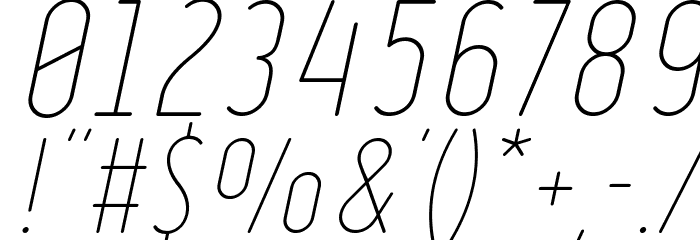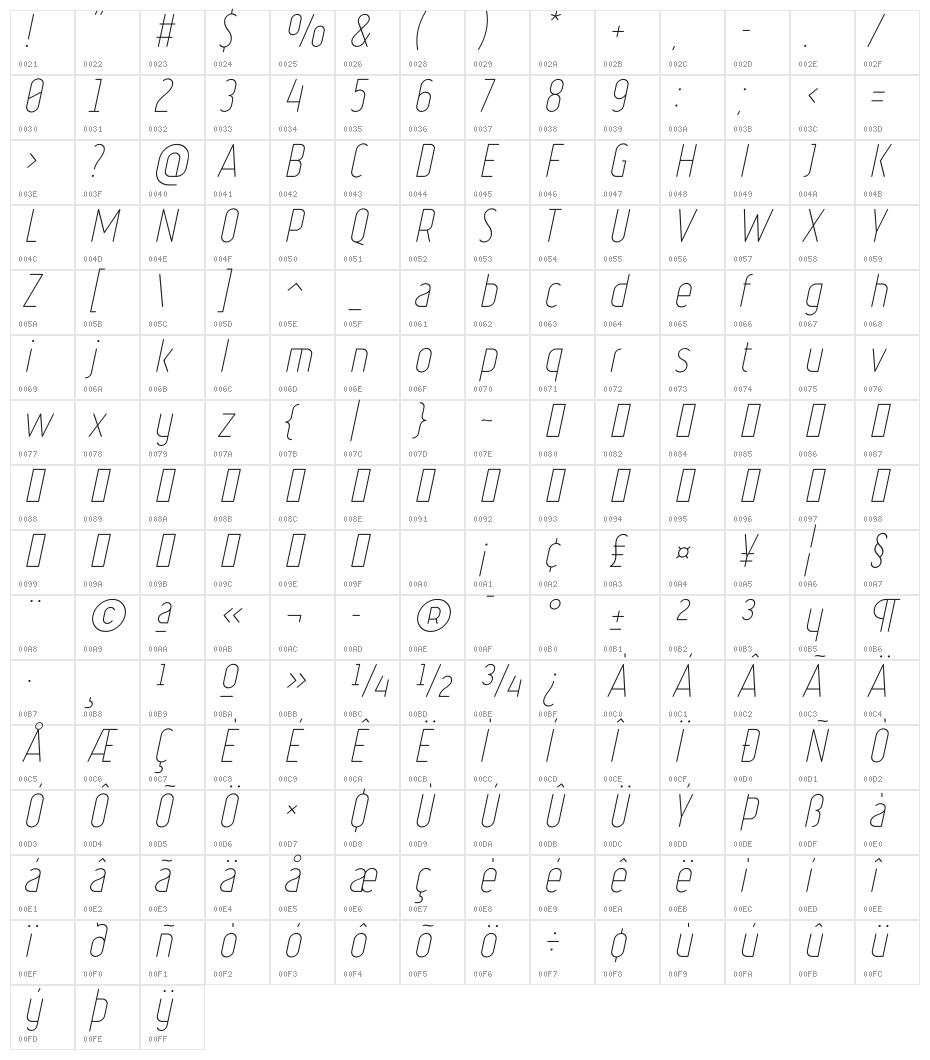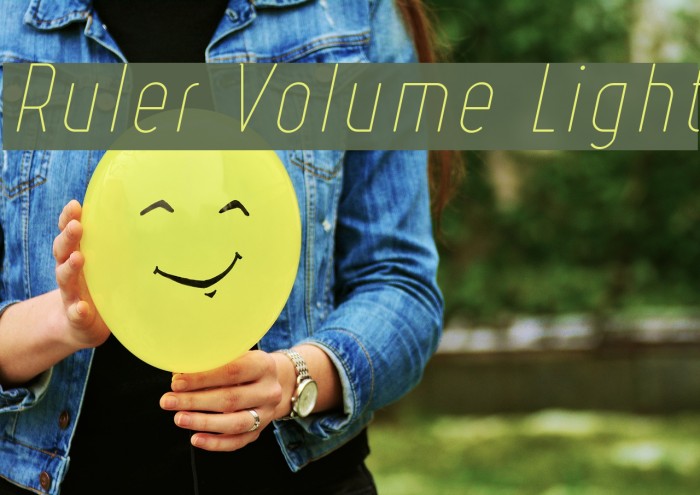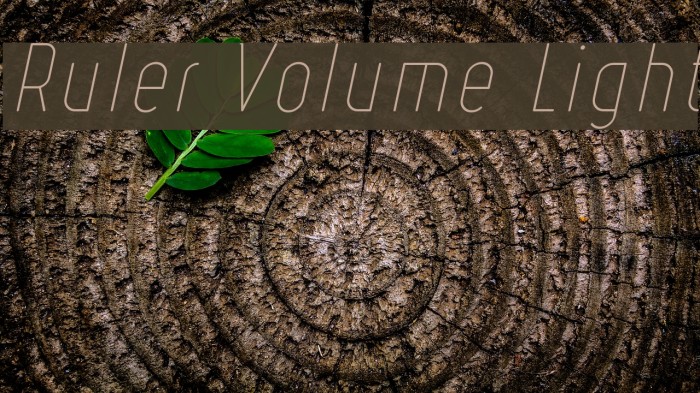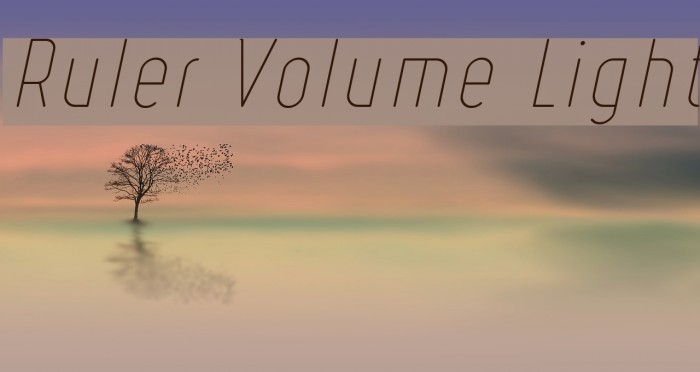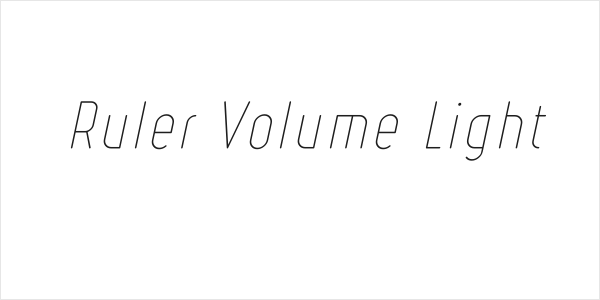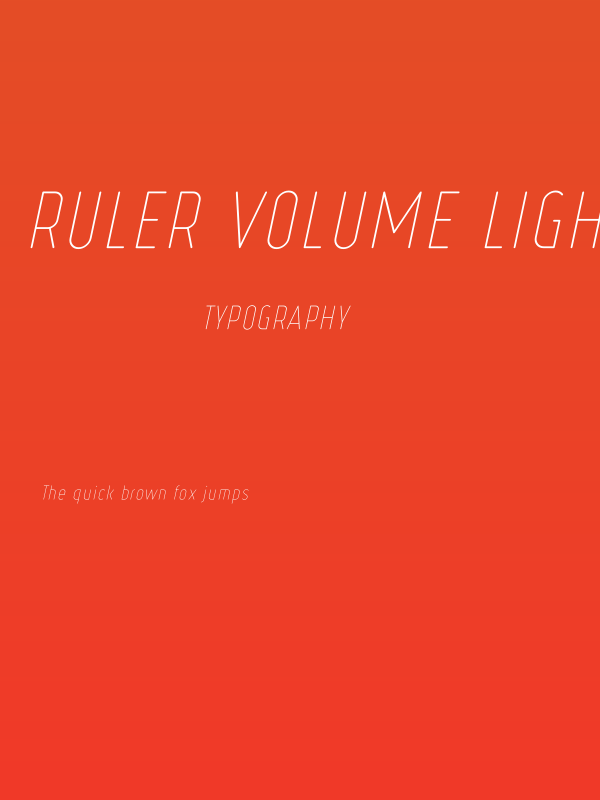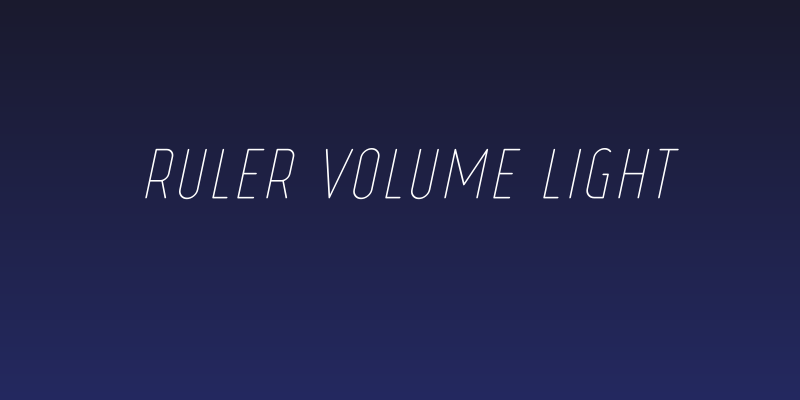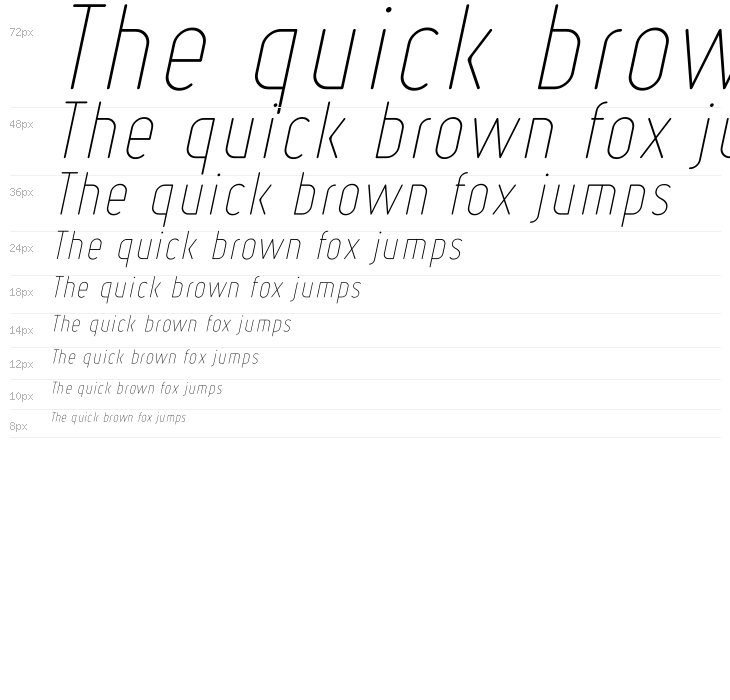
Ruler Volume Light Font
Ruler Volume Light Description
This font features a sleek and modern design with a light weight and slightly condensed width. The characters are elegantly slanted, giving it an italicized appearance, while maintaining a clean and minimalistic aesthetic. The strokes are thin and consistent, providing a low contrast between thick and thin lines. The overall style is contemporary, making it suitable for a variety of design applications. The spacing between characters is normal, ensuring readability while preserving its stylish look. This font is versatile and can be used in both digital and print media.